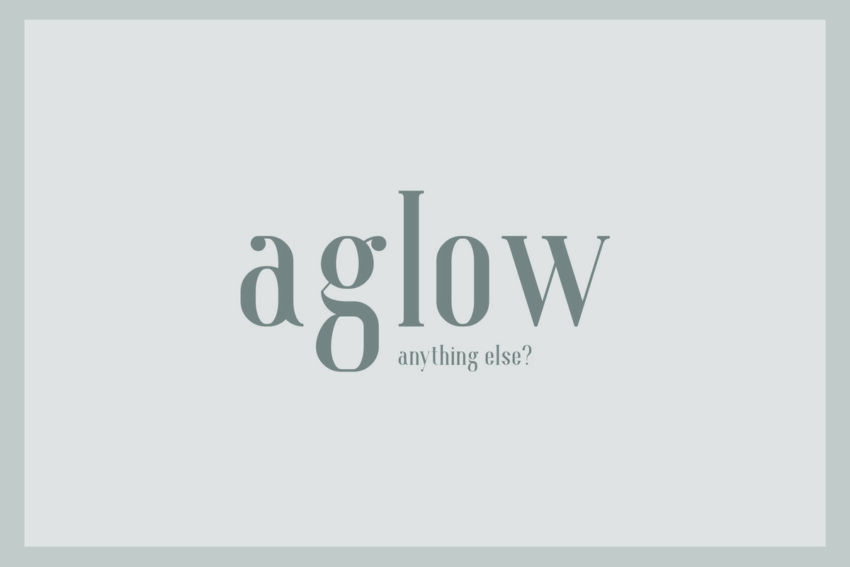
Introduction to Aglow Font
Aglos is a classic-style serif that comes in 4 different variations.
It’s easy to read and works well as body text or as paragraphs .
Key Features of Aglow Font
Why Choose Aglow Font?
Aglow Font offers exceptional quality and versatility, making it a valuable addition to your design toolkit. Whether you’re creating for personal projects or commercial use, Aglow Font delivers professional results.